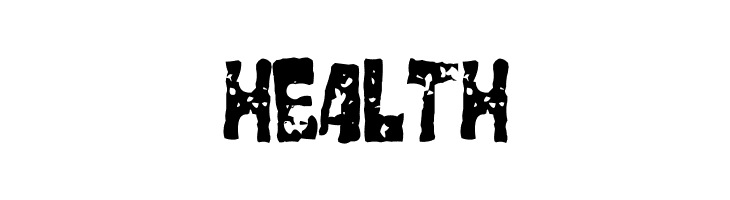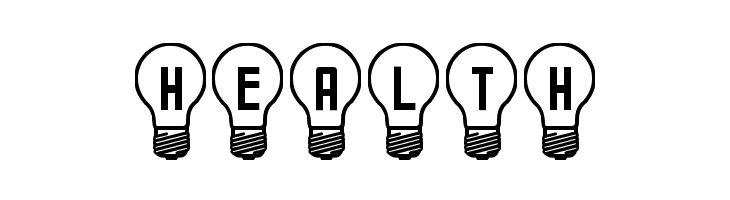
• Good Idea St
( Fonts by Southype )
A playful font with characters inside light bulb shapes, ideal for creative projects.
• Gooey
( Fonts by Dreadful Productions - http://usersites.horrorfind.com/home/horror/dreadful/ )
A bold, dripping font with a gooey, liquid appearance.
• Google Sans Bold
( Fonts by Google OFF SITE )
A bold, modern sans-serif font with geometric shapes and consistent stroke width.
• Google Sans Bold Italic
( Fonts by Google OFF SITE )
A modern, bold, and italic sans-serif font with consistent stroke thickness.
• Google Sans Italic
( Fonts by Google OFF SITE )
A modern, italic sans-serif font with clean lines and a dynamic style.
• Google Sans Medium
( Fonts by Google OFF SITE )
A modern, clean sans-serif font with balanced proportions and smooth curves.
• Google Sans Medium Italic
( Fonts by Google OFF SITE )
A modern, italic sans-serif font with medium weight and balanced design.
• Google Sans Regular
( Fonts by Google OFF SITE )
A clean, modern typeface with geometric structure and excellent readability.
• GorgoBold
( Fonts by Dreadful Productions - http://usersites.horrorfind.com/home/horror/dreadful/ )
• Gornathon Regular